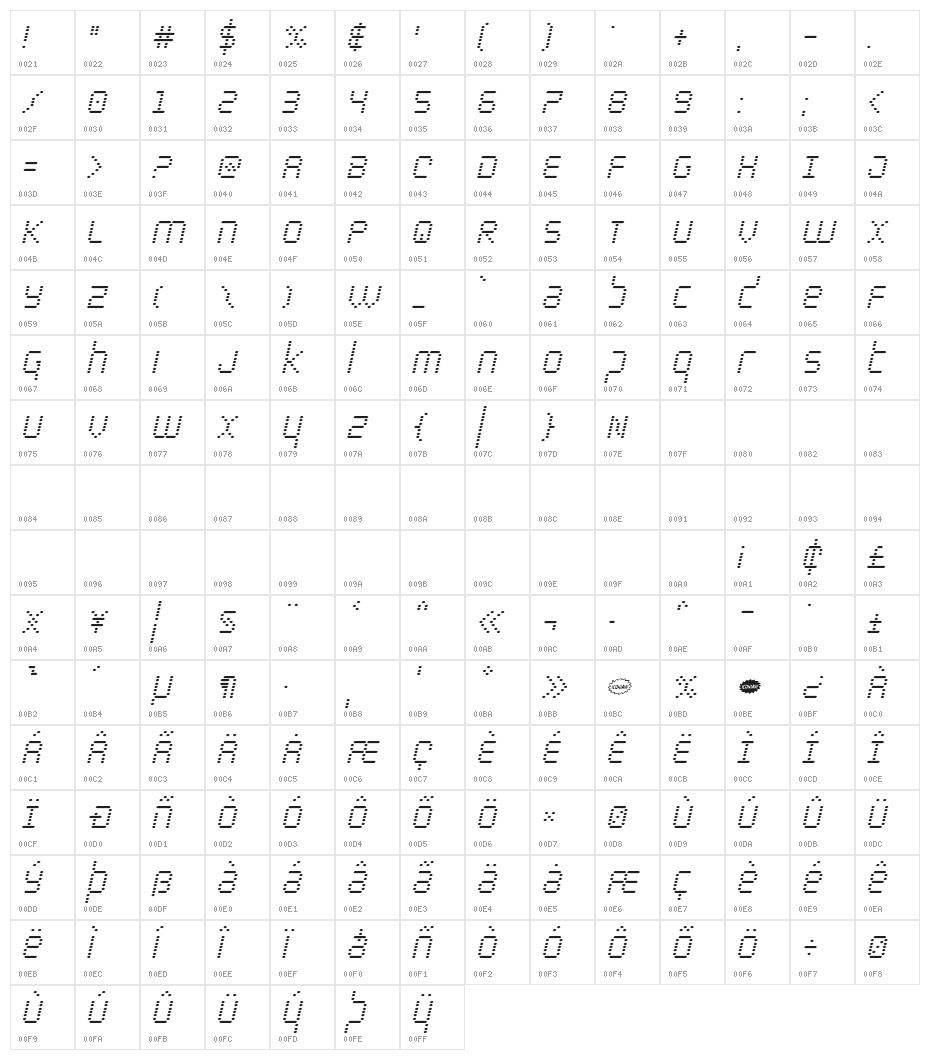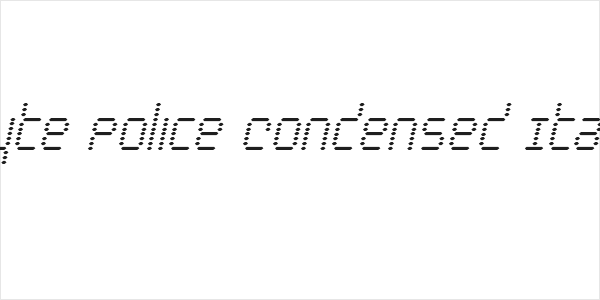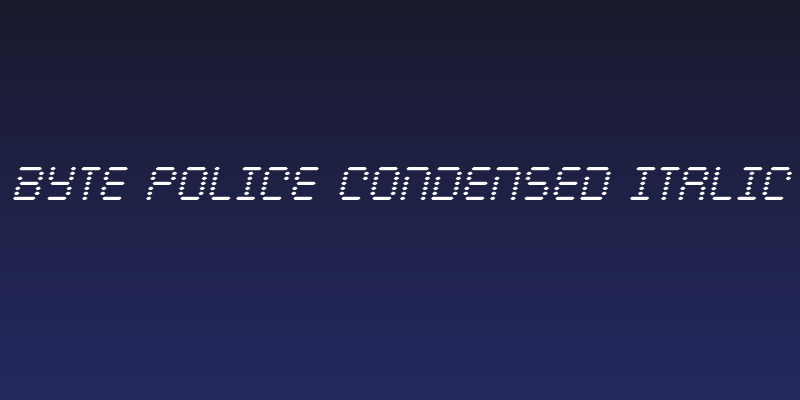
Byte Police Condensed Italic Font
Byte Police Condensed Italic Description
This unique font features a dotted, pixelated design that gives it a digital, futuristic appearance. Each character is composed of a series of dots, creating a cohesive and structured look. The font is italicized, adding a sense of movement and dynamism. Its condensed form allows for efficient use of space, making it ideal for projects where space is limited. The consistent dot pattern across all characters provides a uniform and modern aesthetic, suitable for tech-related themes or digital interfaces.
| Use Case | Logos, Headlines, Digital Interfaces |
| Proposed Projects | Ideal for digital interfaces, tech-themed designs, futuristic branding, and modern art projects. |